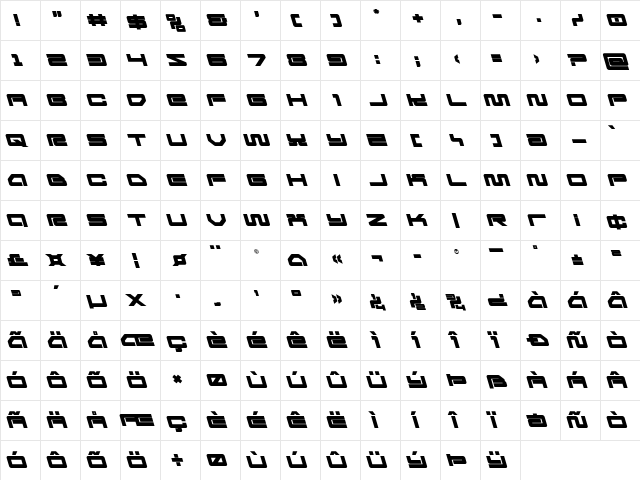
Ranger Force Leftalic Regular
Design Context for Ranger Force Leftalic Typeface
Ranger Force Leftalic has the bold swagger of sports branding: strong, assertive letterforms designed to dominate headlines and jerseys alike. The dynamic lean of this cut emphasises speed and emphasis in any layout.
A natural choice for gym brands, fantasy sports, jersey lettering, and action-driven headlines.
Pro Tip: Use Ranger Force Leftalic in all-caps headlines where its athletic energy can fully express itself. Pair with a solid, simple sans for supporting text.